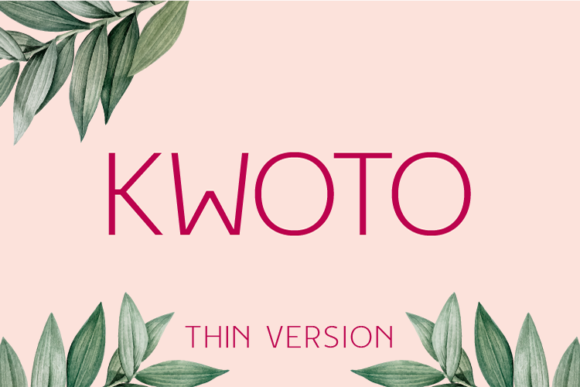
Introducing Kwoto Thin, the sans serif font that will transform your designs with its modern and captivating style. Nan Design has meticulously crafted this font, infusing it with a touch of elegance and a dash of playfulness.
Kwoto Thin is a font that embodies versatility. Its sleek lines and delicate curves dance harmoniously on the page, making it the perfect choice for a wide array of creative projects. Whether you're designing logos, posters, book covers, or anything in between, Kwoto Thin will elevate your creations to new heights.
With its timeless appeal, Kwoto Thin effortlessly captures the attention of your audience. Its bold yet approachable personality makes it ideal for branding, as it can convey both a sense of professionalism and approachability. Let your designs speak volumes with Kwoto Thin, the font that will ignite your imagination and leave a lasting impression on everyone who encounters it.